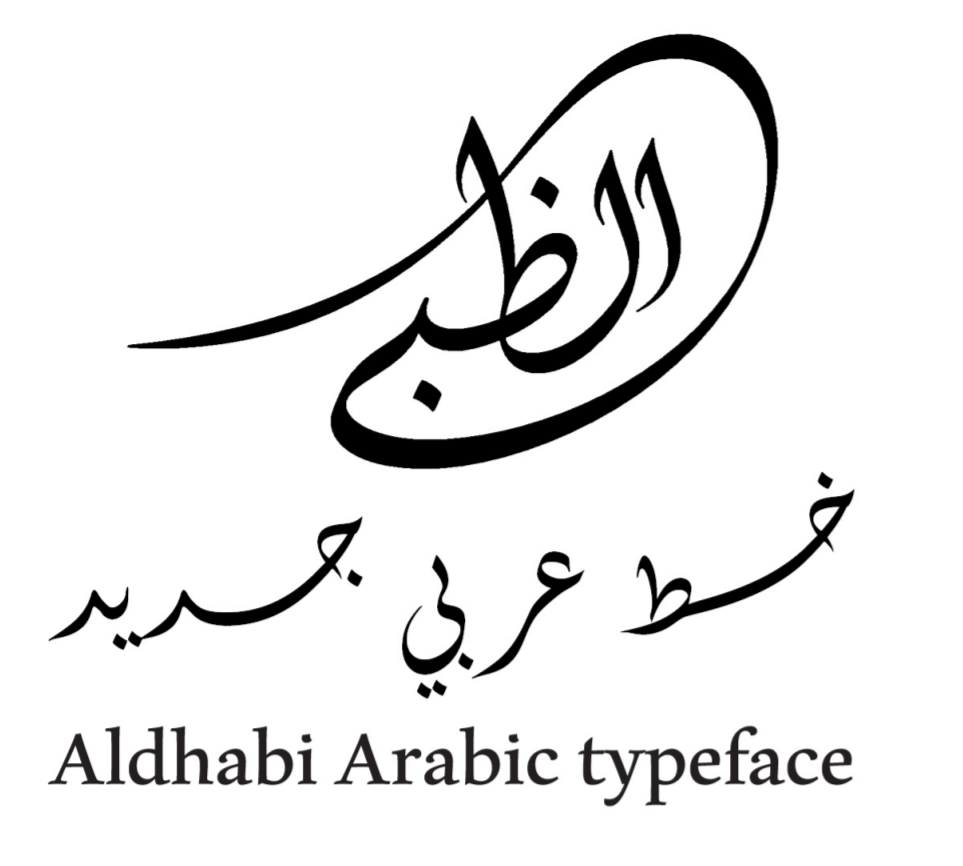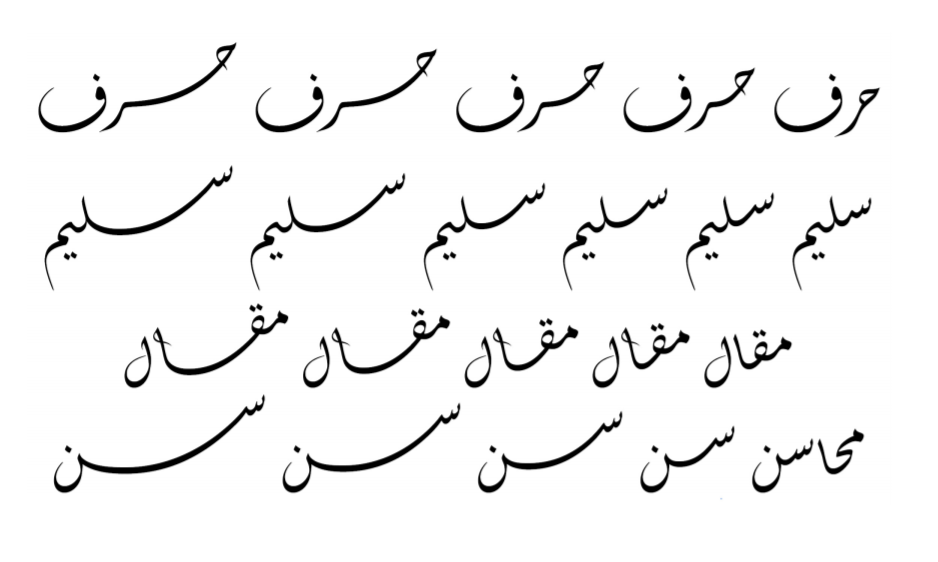
Aldhabi is a Arabic OpenType font intended for use at larger, display sizes and in situations where an elegant, flowing style is appropriate. Unlike many other Arabic fonts that attempt, with limited success, to implement specific historical styles of Arabic calligraphy, Aldhabi represents a new synthesis of historical influences, technical capabilities of current font and layout software, and the needs of contemporary use (including the increasingly important area of text on screen).
At the same time, it avoids the kinds of compromises of the writing system that have typically characterized most mechanical and digital Arabic typesetting.
The design of Aldhabi is inspired, in the first place, by the overall impact on the page of an historical writing style known in Ottoman Turkish as zülf-ü aruz, the ‘way of curls’. This flowing, undulating style is a precursor of the Ottoman diwani calligraphic style, and also involves features in common with the Persian nastaliq style.
The design of Aldhabi does not attempt a typographic implementation of this historical style but, rather, treats it as a source of inspiration for something new, synthesizing features of zülf-ü aruz and other styles with a concern for legibility and comfort for contemporary readers.
- Figure 1: Aldhabi is an Arabic typeface inspired by early Diwani calligraphy, distinct for its ornate details and exaggerated cursive connections. The Arabic glyphs are accompanied by a harmonized Latin design that provides support for occasional English or other European language words in the larger context of Arabic text, as well as transliteration of Arabic and Persian.
- Figure 2: One of Aldhabi’s distinctive features is the ability to make numerous cursive extensions simply by typing kashidas from the keyboard.